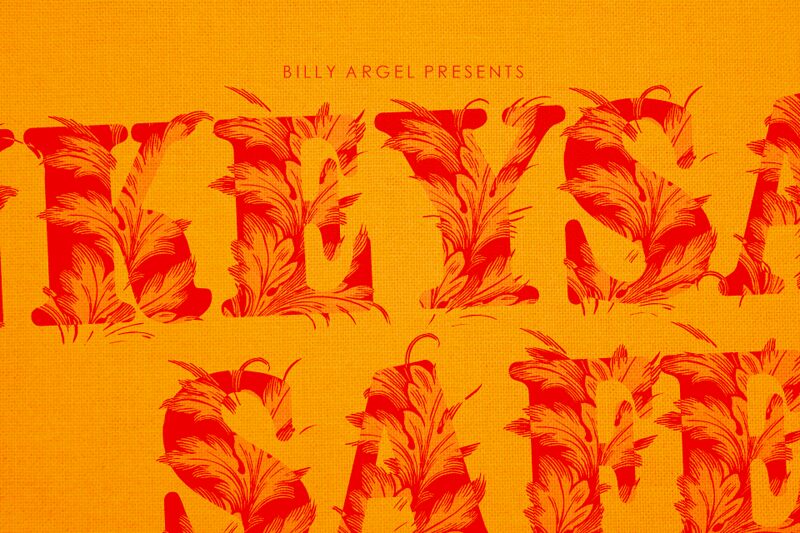
MONKEYSAFARISAFEDEMO-Bold
Looking for a font that's both playful and bold? Look no further than the MONKEYSAFARI SAFE display font by Billy Argel Fonts! With its extra-bold weight and decorative style, this font is perfect for projects that require a touch of whimsy, such as children's books, party invitations, or even branding for a quirky cafe or boutique. Let your creativity run wild with this fun and eye-catching typeface. So why settle for boring fonts when you can go on a MONKEYSAFARI today?
Layered SVG color font.